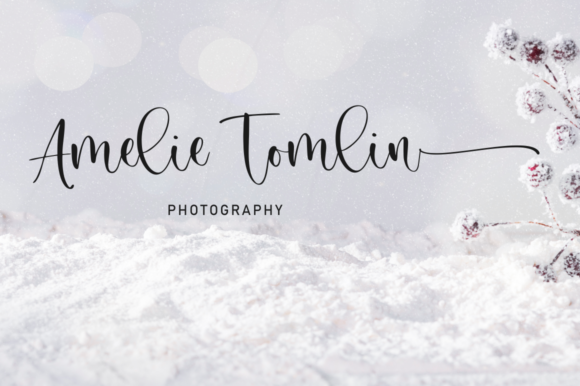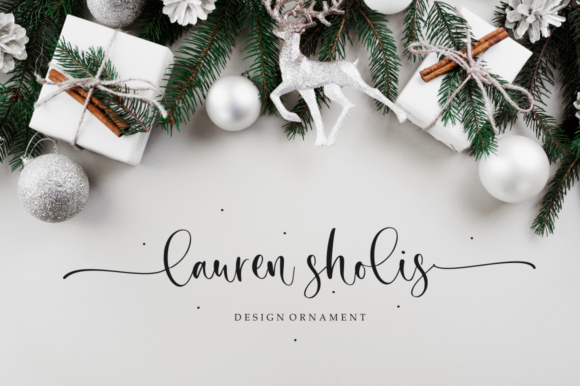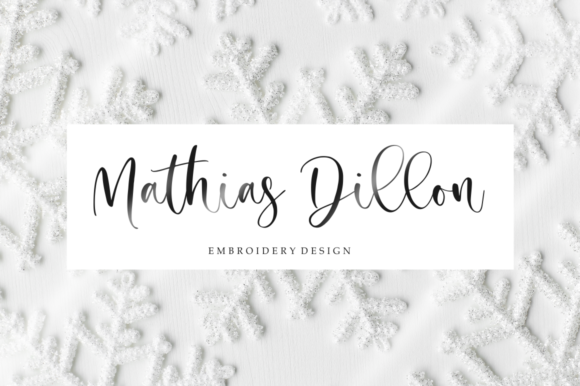
Introduction to Secret Winter Font
Secret Winter is a beautiful calligraphy font.
It is ideal for crafting, branding, invitation, stationery, wedding designs, social media posts, advertisements, product packaging, product designs, label, photography, watermark, special events, or anything This romantic font is PUA encoded which means you can access all of the glyphs and swashes with ease.
Key Features of Secret Winter Font
Why Choose Secret Winter Font?
Secret Winter Font offers exceptional quality and versatility, making it a valuable addition to your design toolkit. Whether you’re creating for personal projects or commercial use, Secret Winter Font delivers professional results.